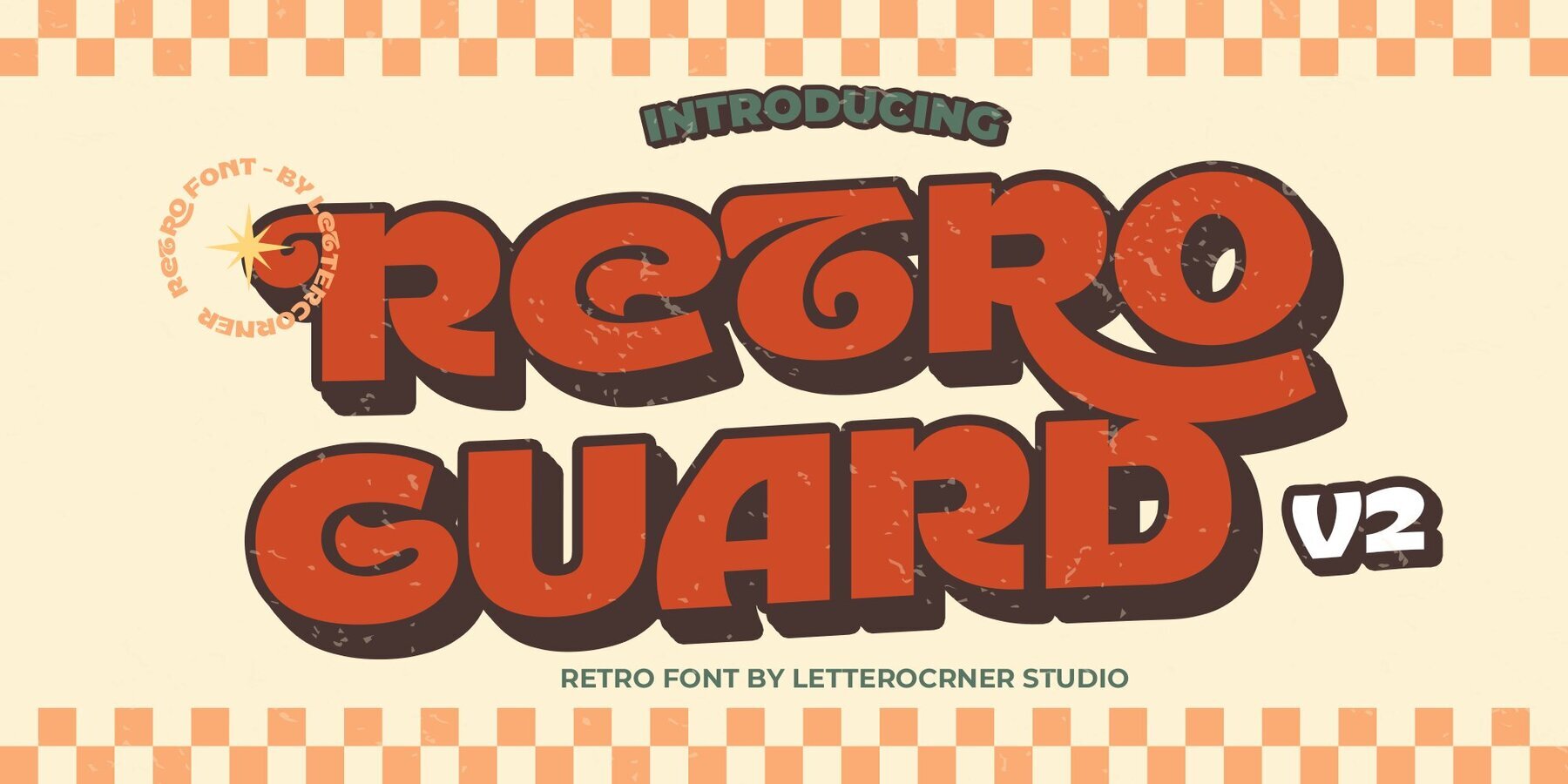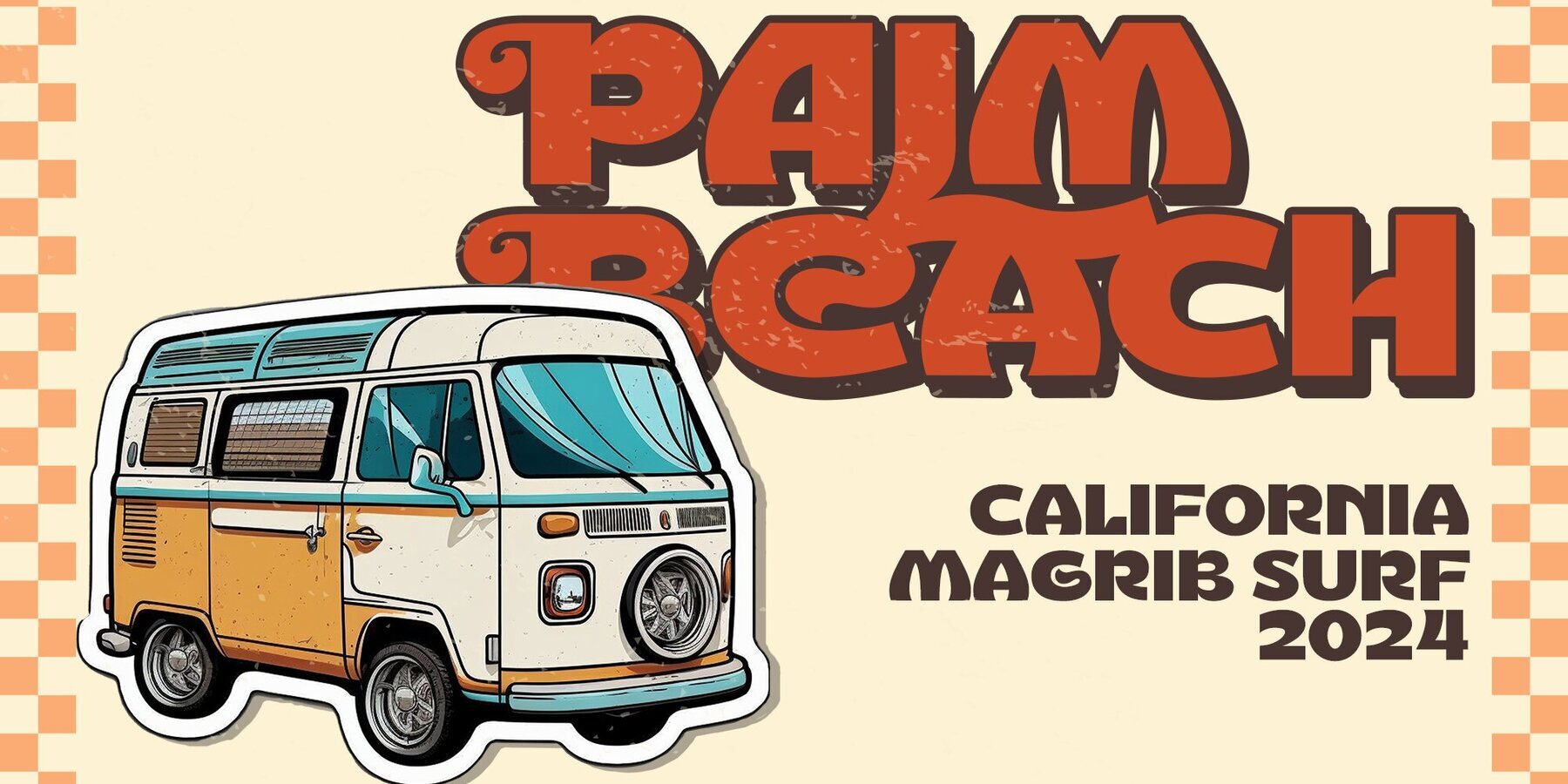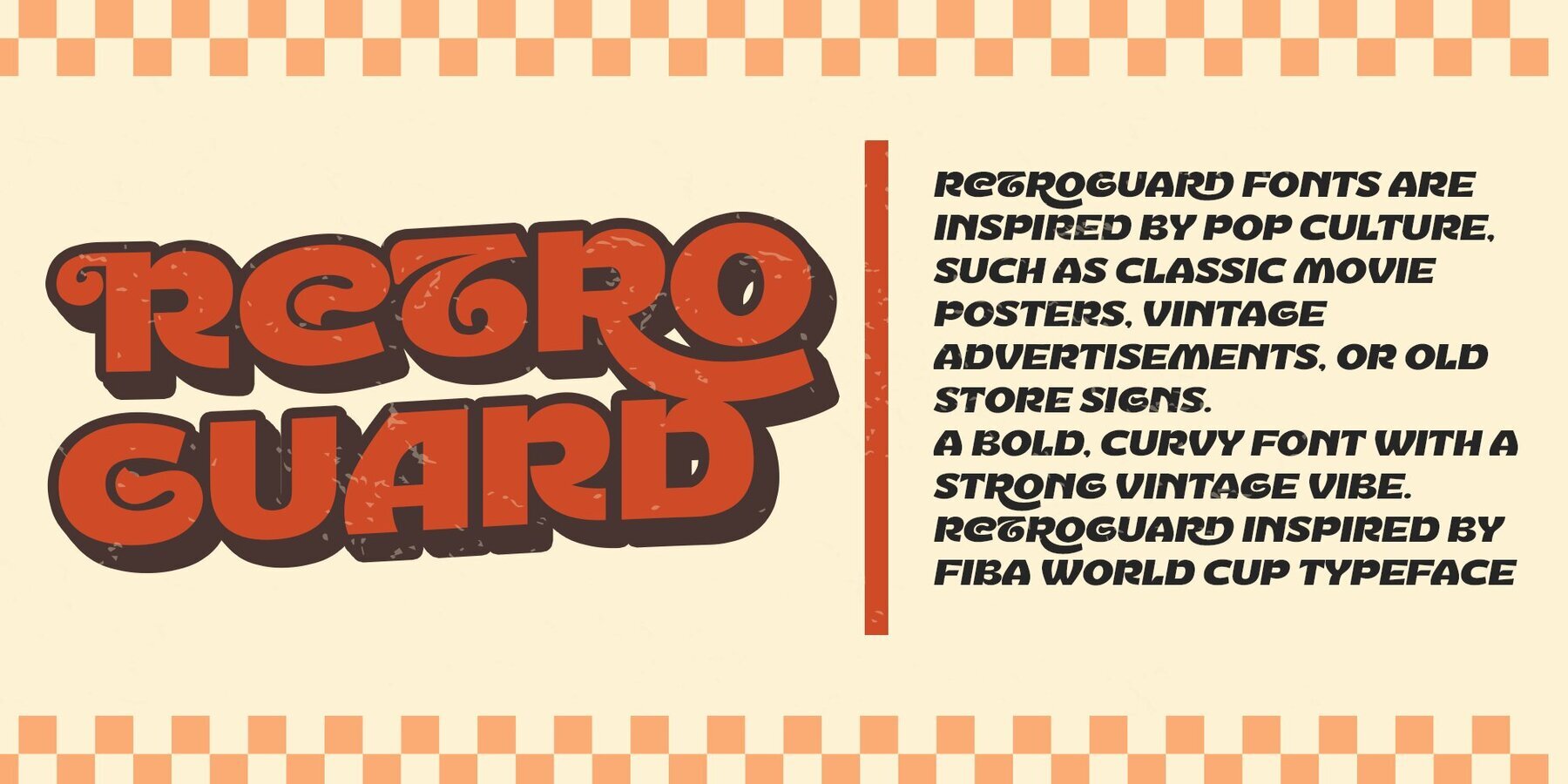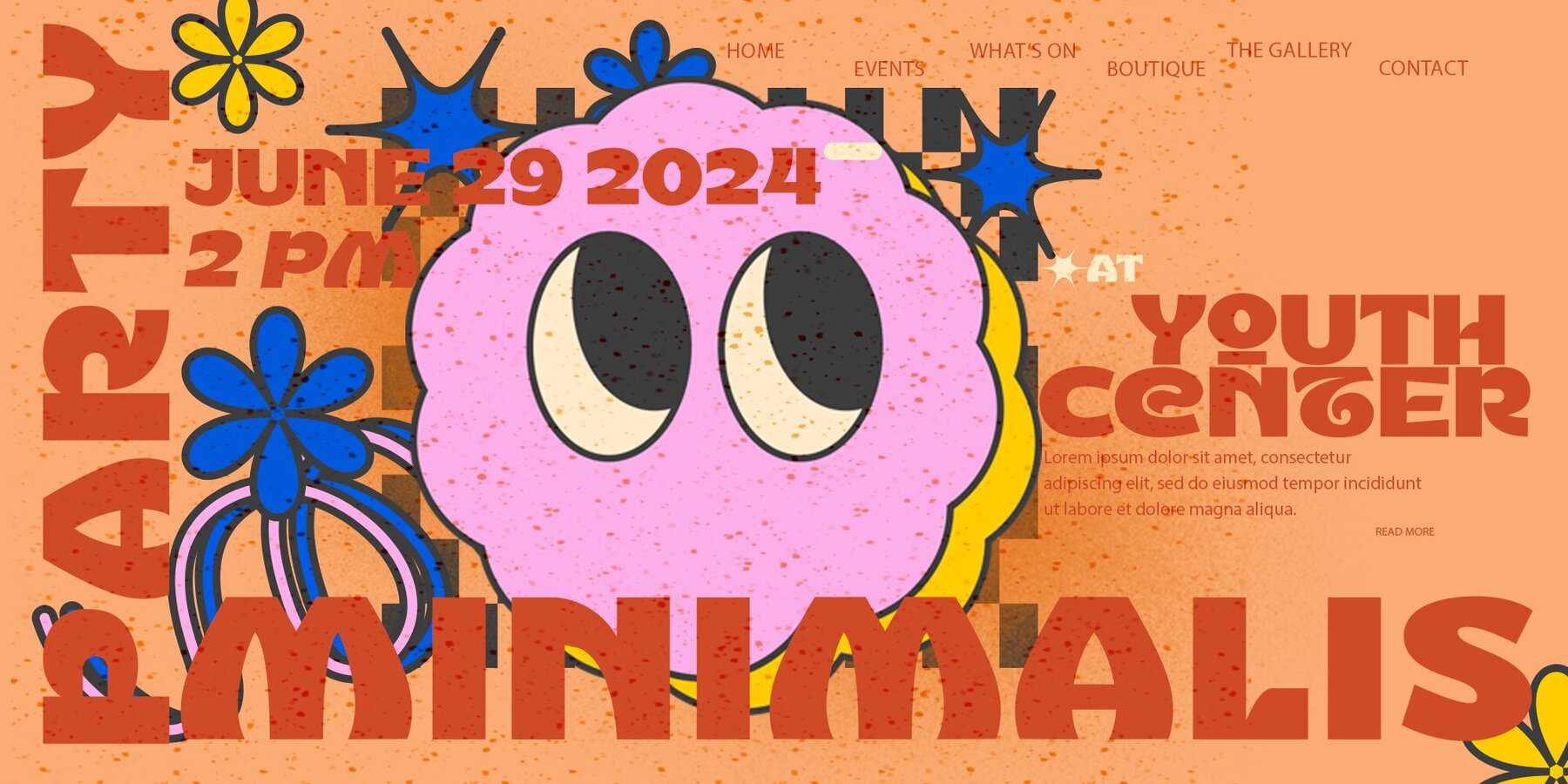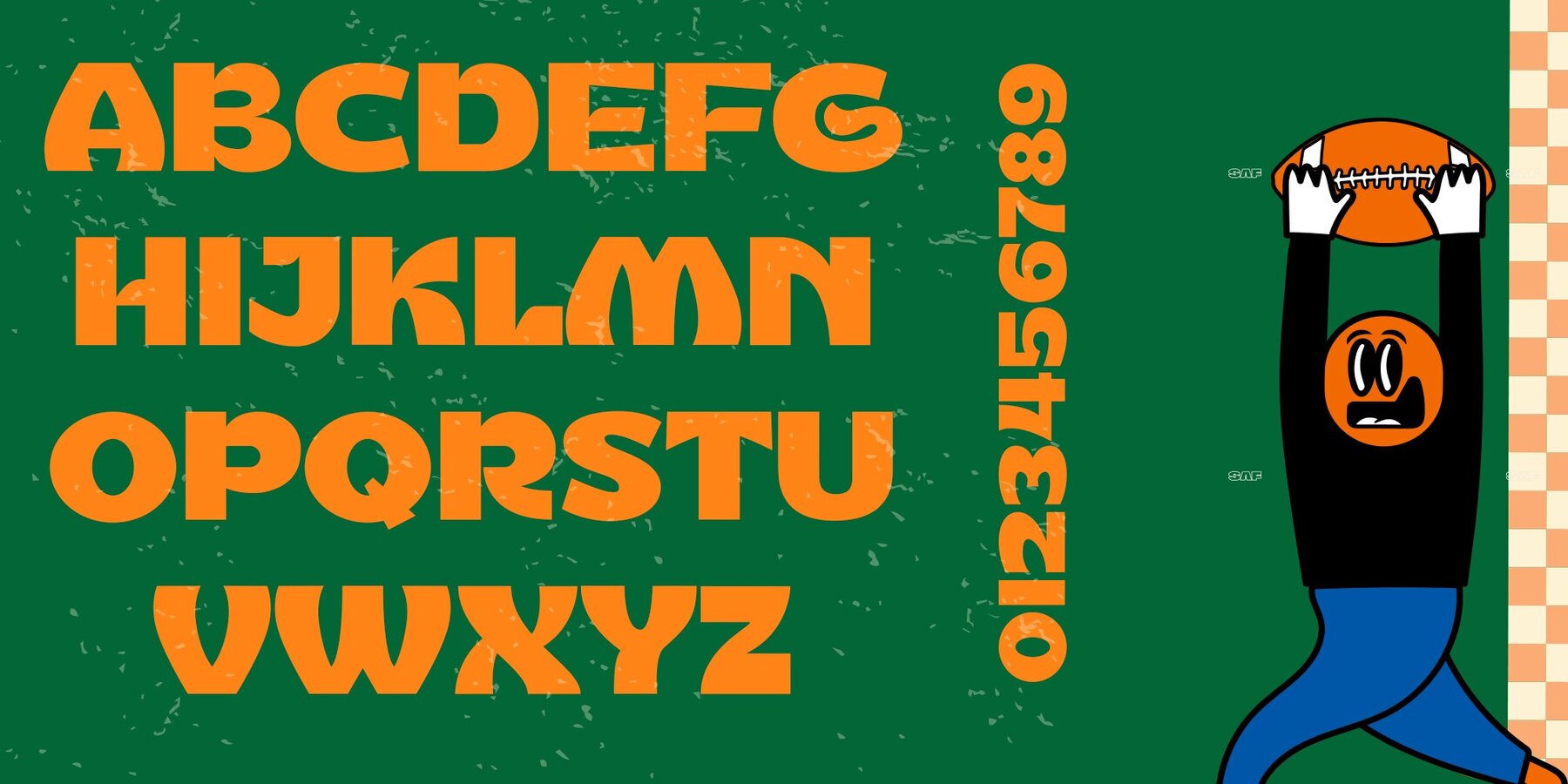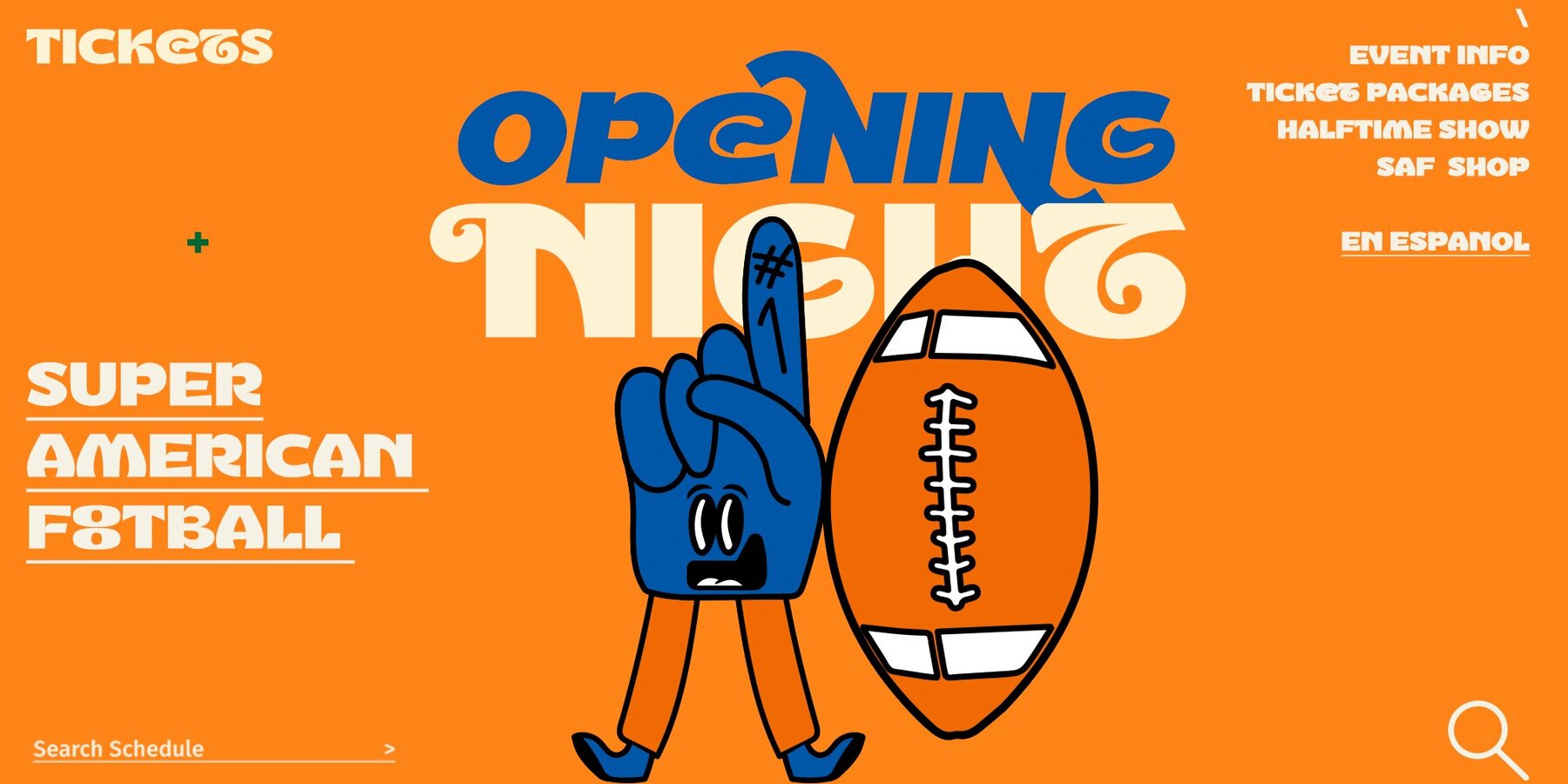
Retroguard V2 1
Retroguard v.2 is a typeface that was inspired by classic movies and frequently makes people nostalgic for the height of cinema. This typeface is distinguished by its strong, dramatic letterforms, which frequently evoke the early 20th-century Art Deco and Art Nouveau movements. Images that enhance boldness and drama, including black-and-white photos, antique movie posters, or pictures of film reels, are frequently used in conjunction with this font.